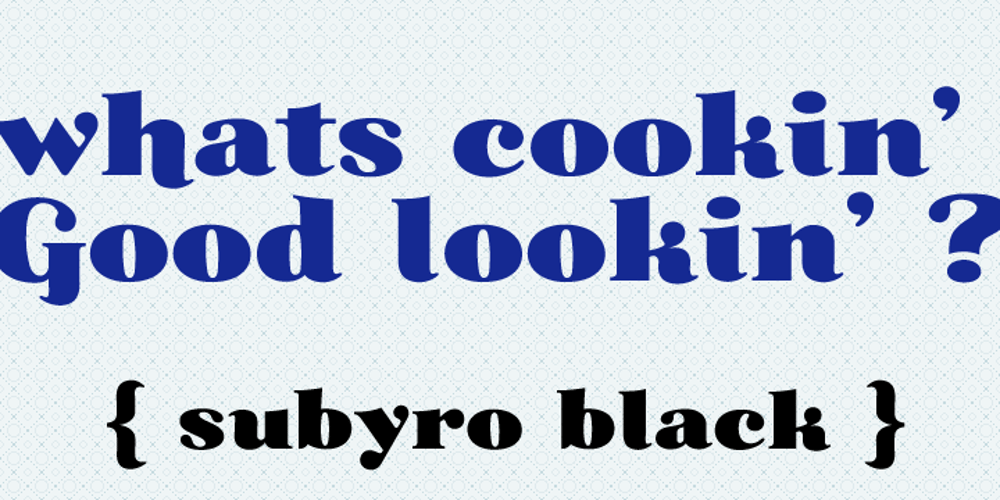
Subytro
Subytro font
Subytro Font Family was designed by Valérie Desrochers and published by Subtitude. Subytro contains 1 styles and family package options. Subytro! Use this font for sweet bold titles. It adds personality and an handmade feeling. Old Style font based on posters of the fifties.